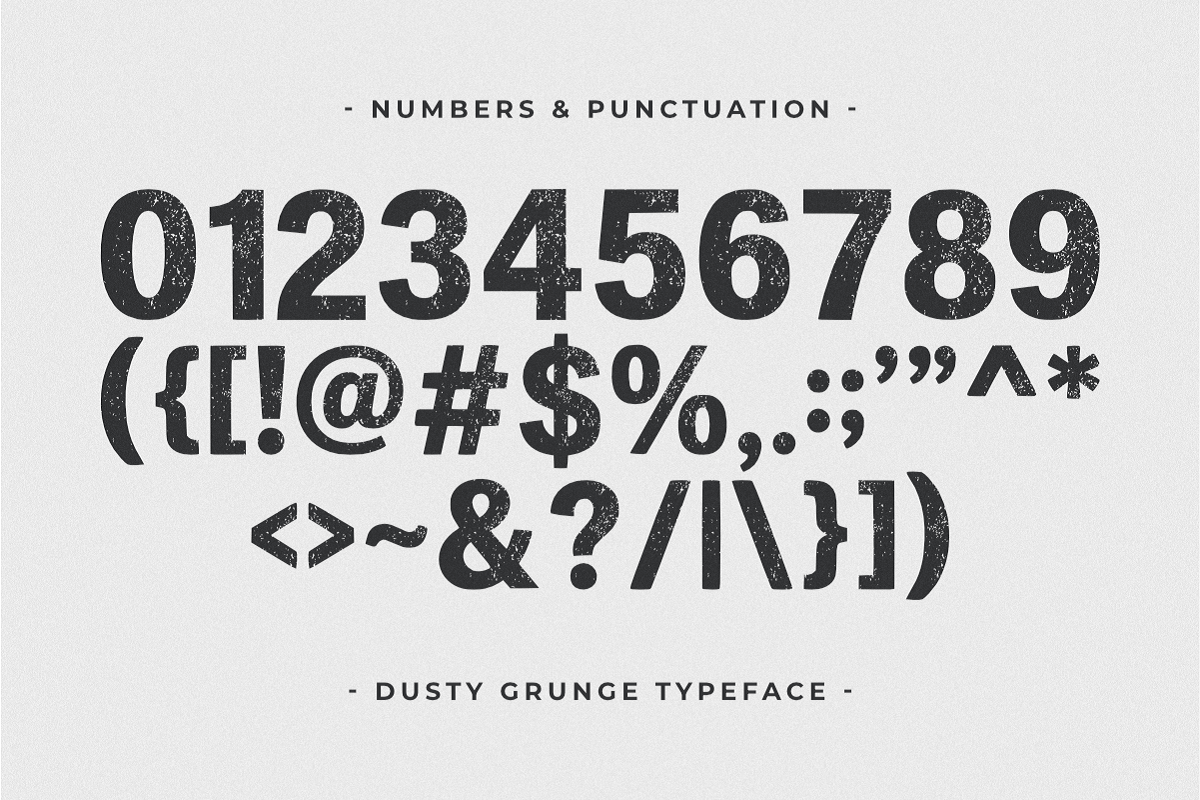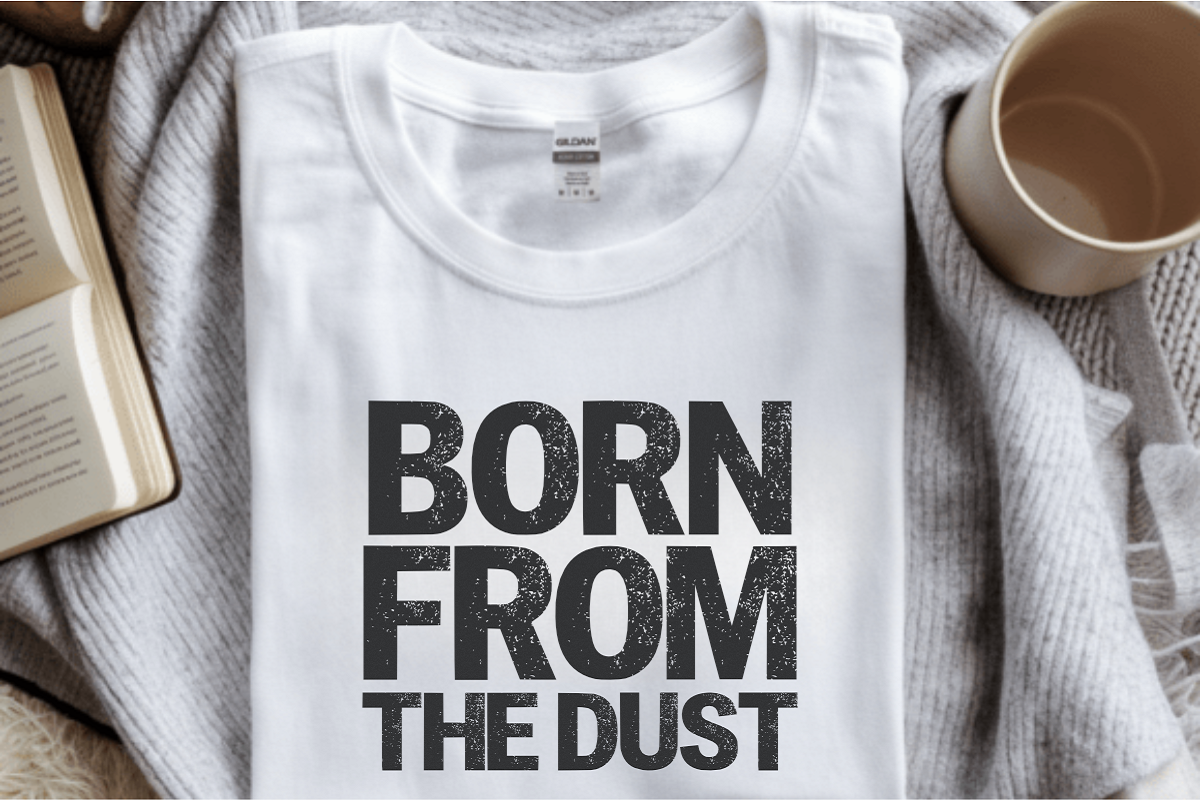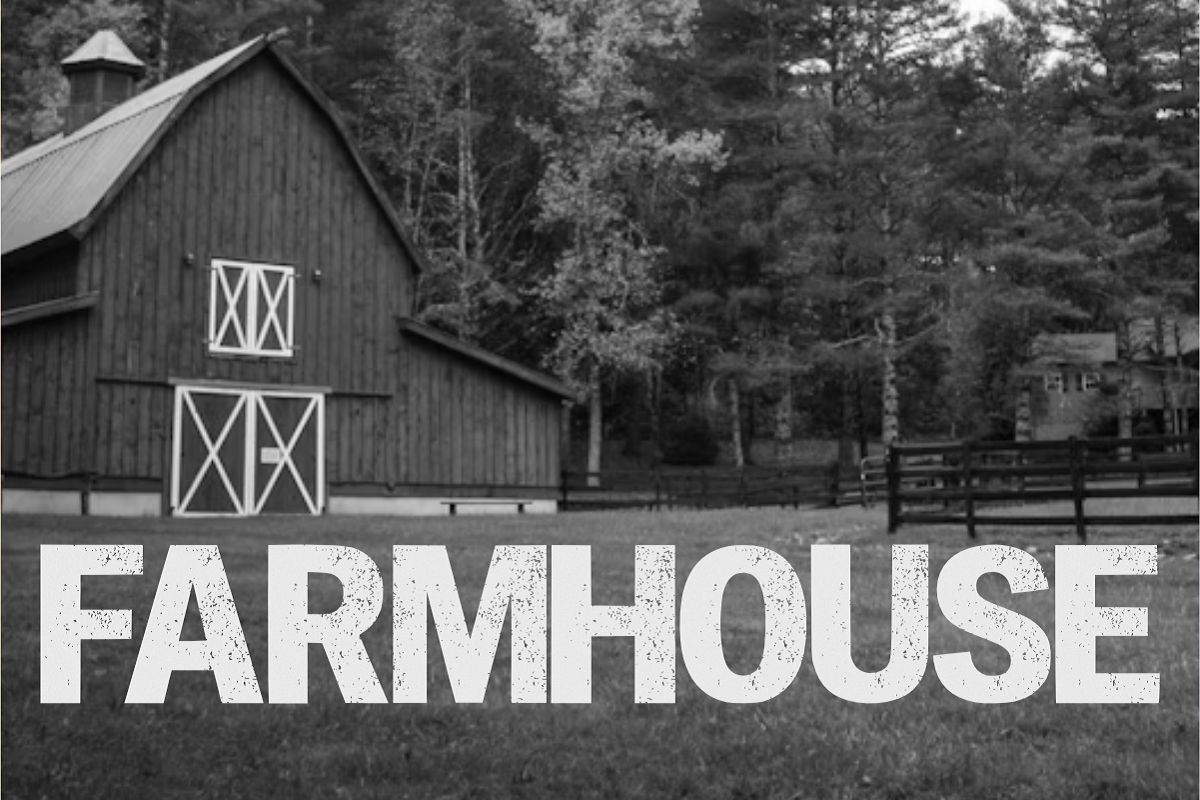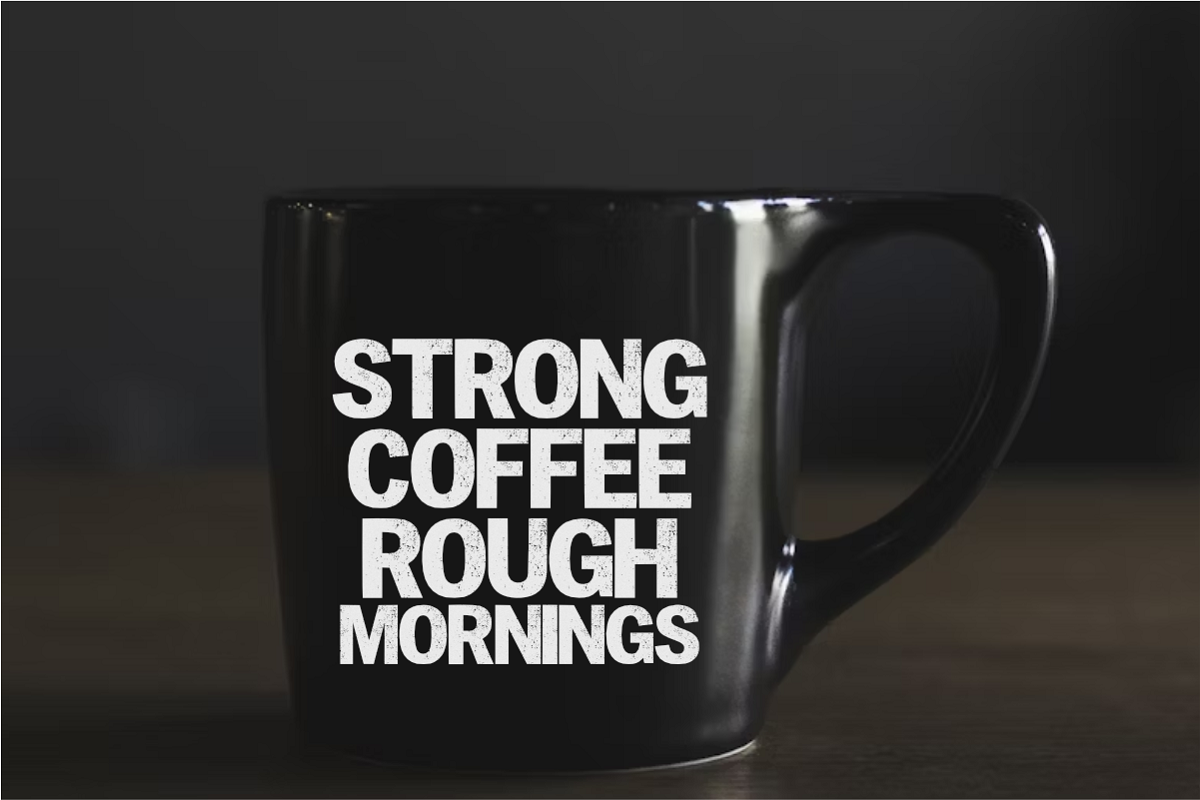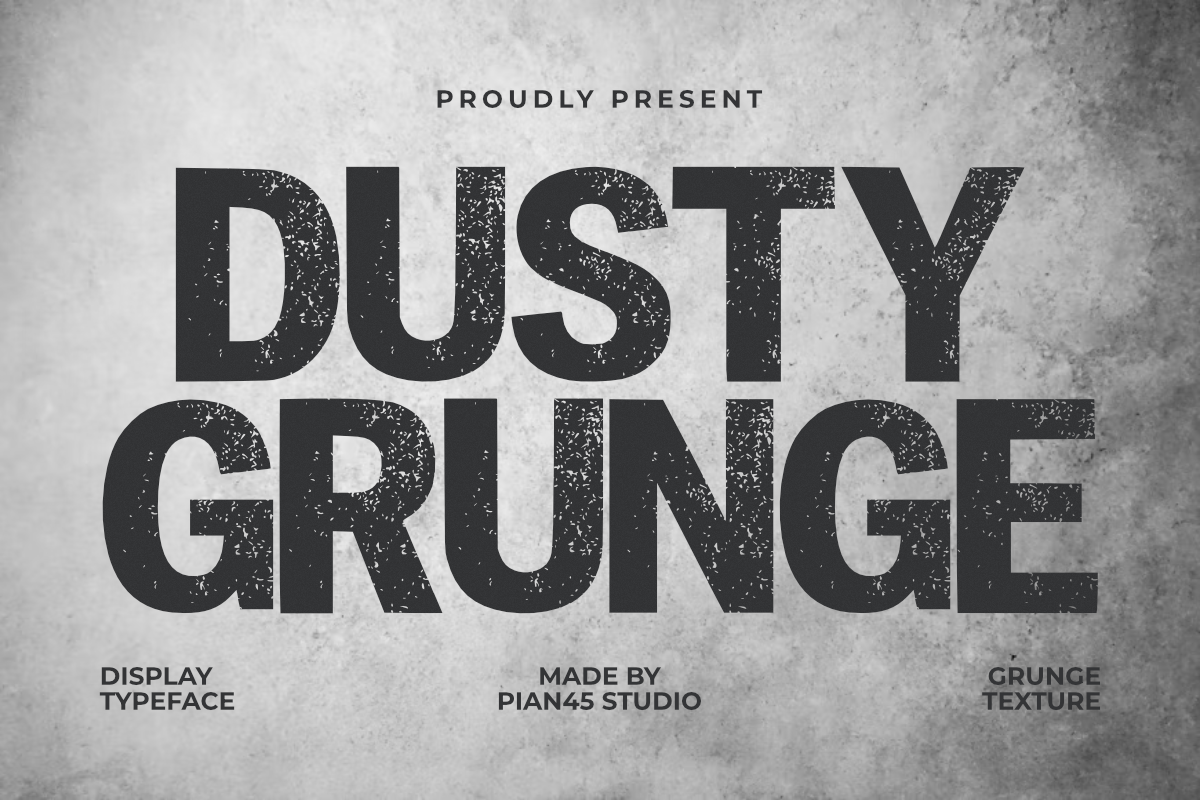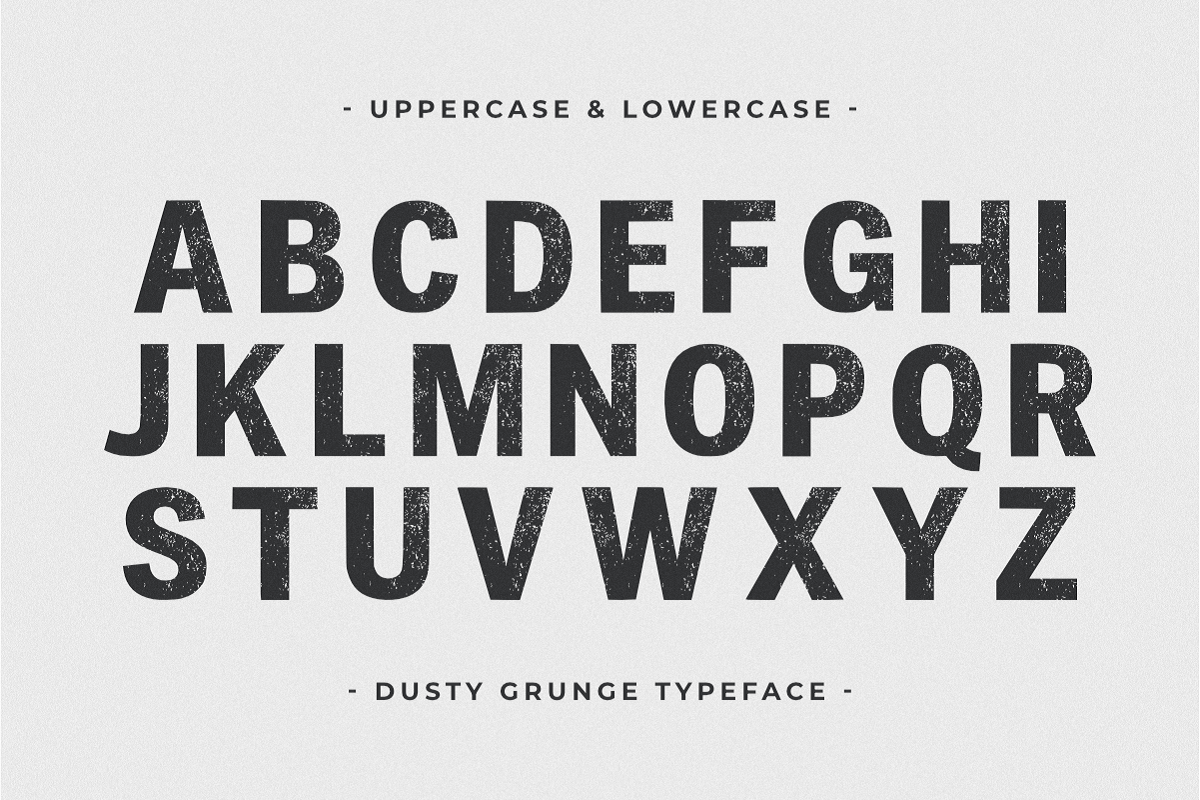
Dusty Grunge - Texture Display Font
Dusty Grunge is a powerful and raw Modern Display font that perfectly captures the gritty essence of urban decay. Featuring a bold, condensed structure with a highly detailed distressed texture, this all-caps typeface is built for high-impact visual storytelling. It is the ideal choice for streetwear branding, vintage rock posters, industrial-style logos, and rugged headlines. Its weathered, worn-out aesthetic delivers an authentic and fearless visual identity, ensuring your designs stand out in merchandise, apparel, and any project demanding a strong, textured presence.